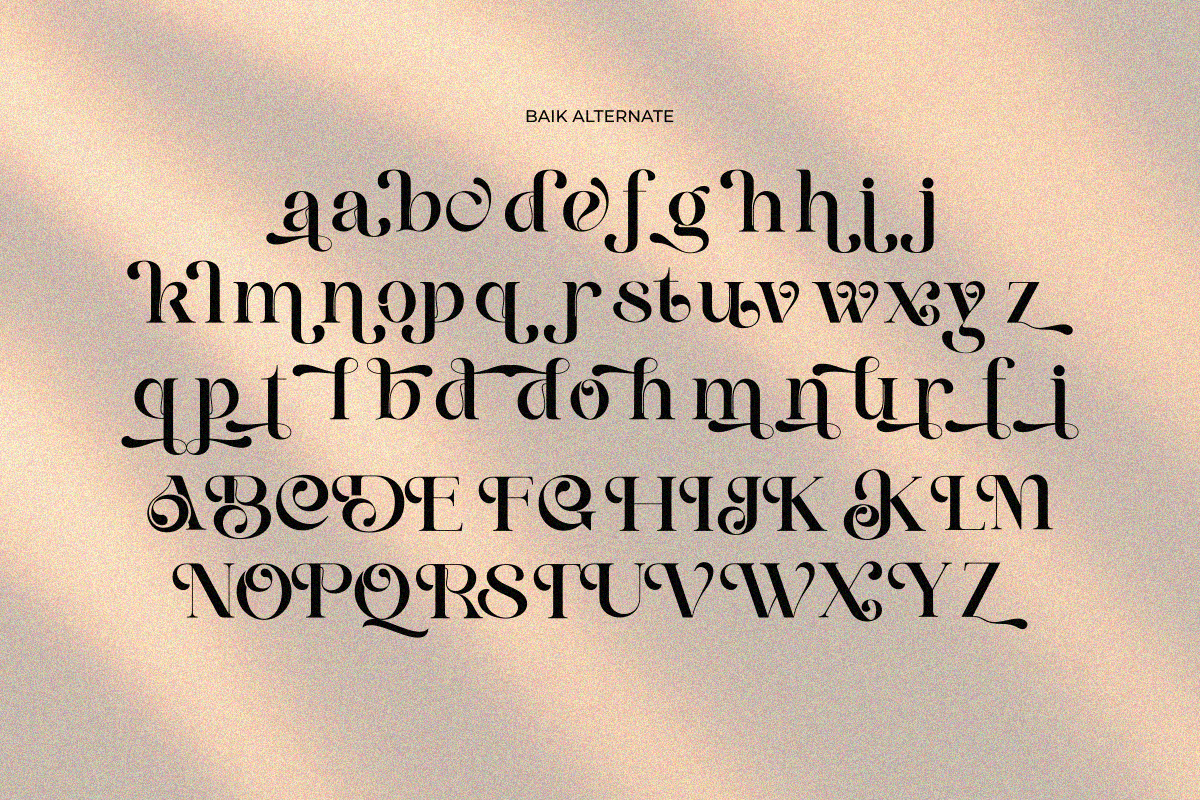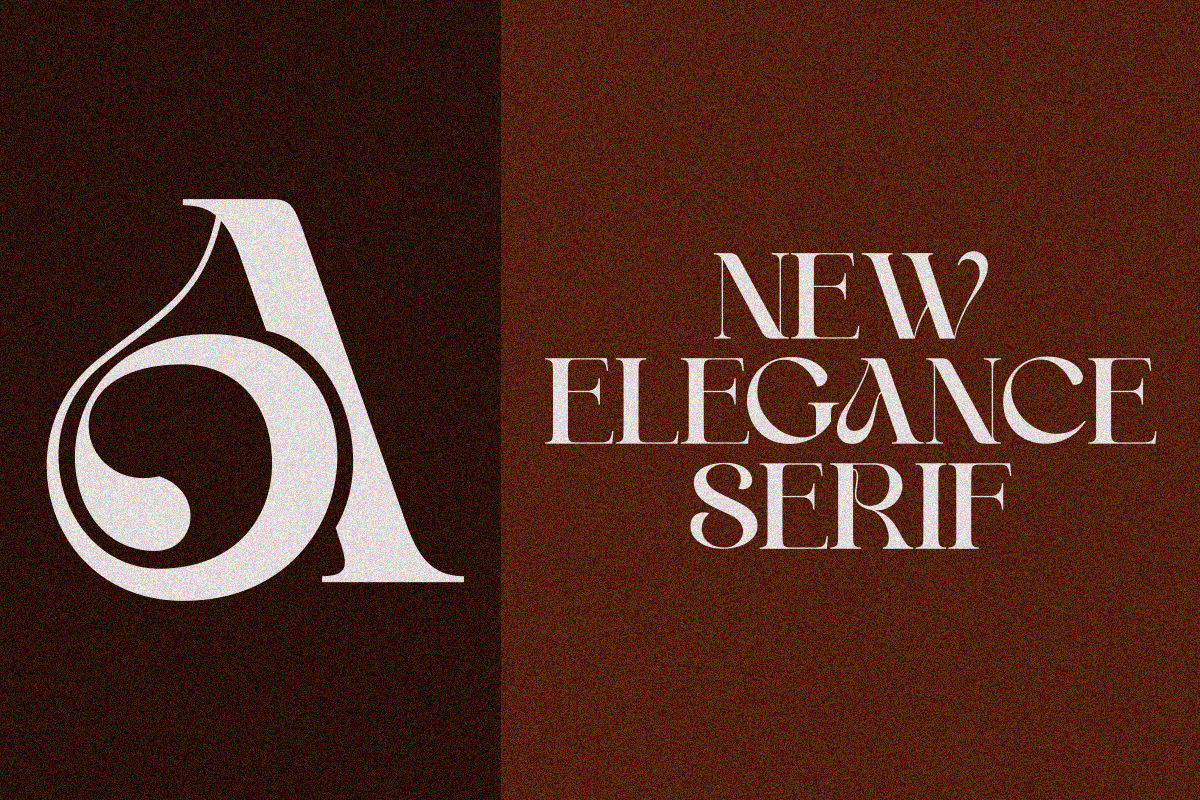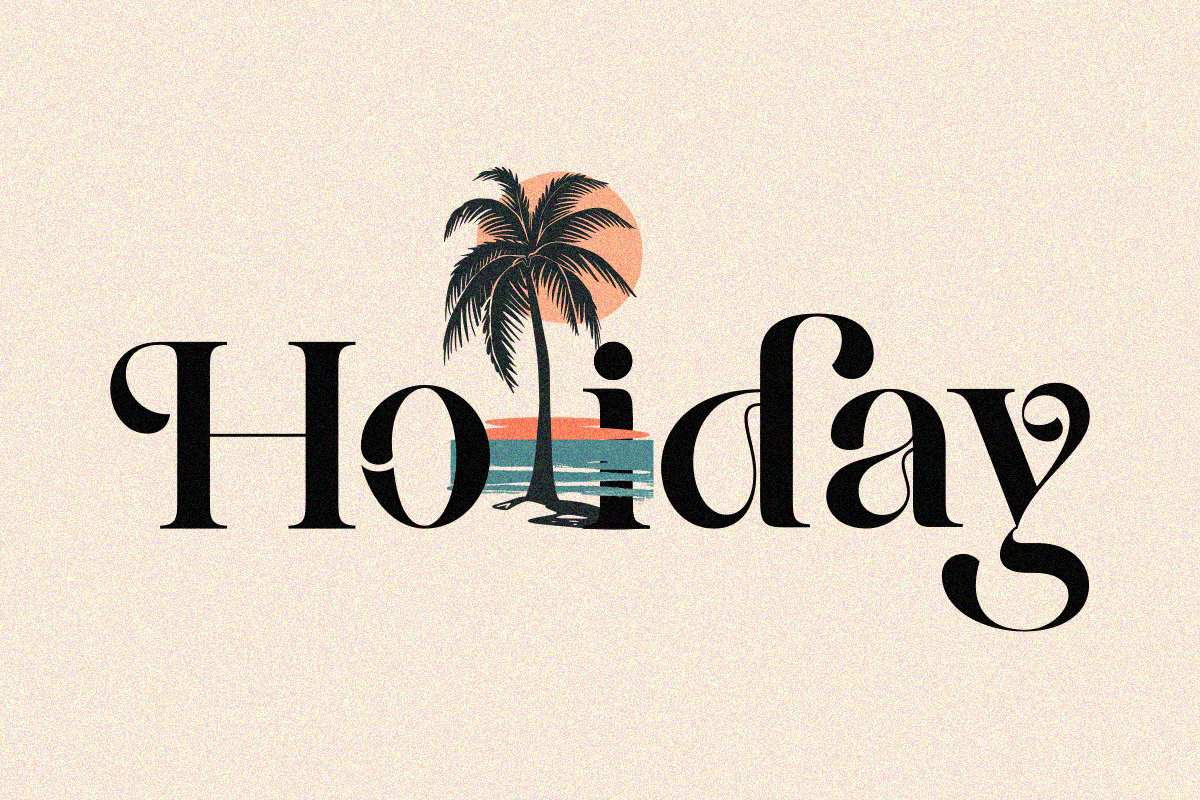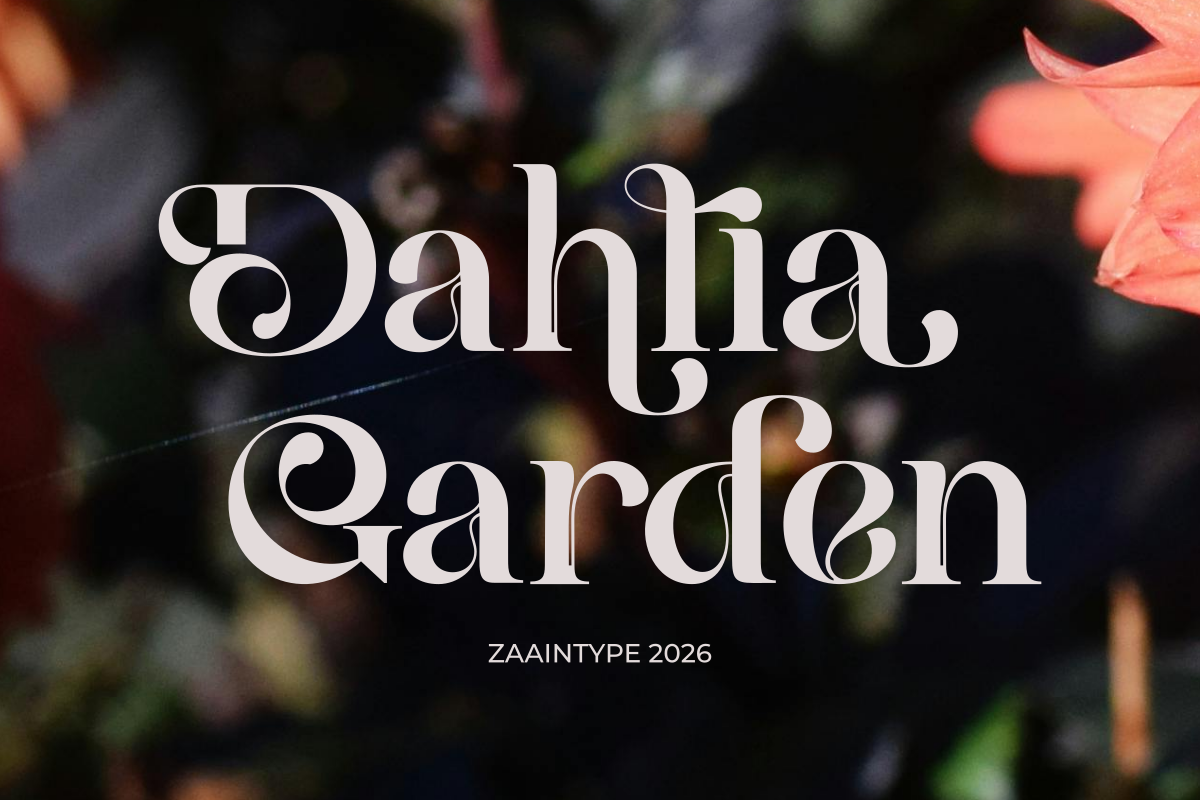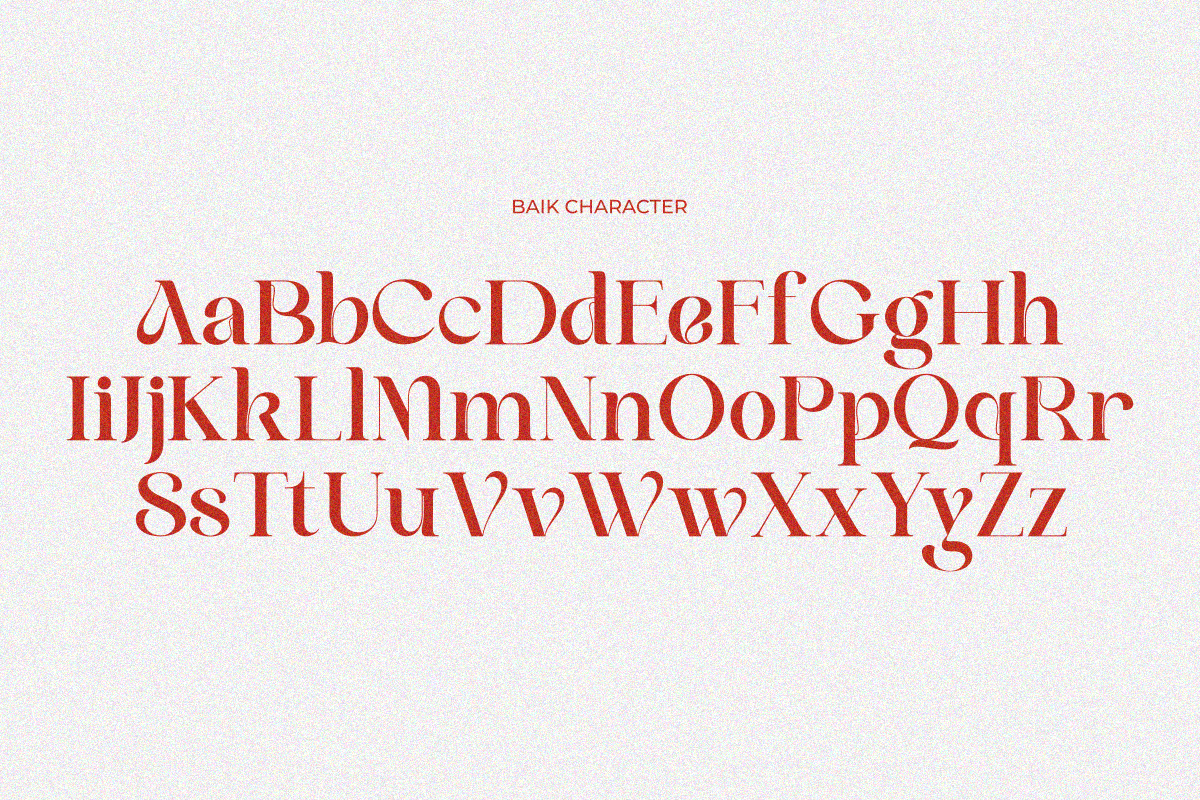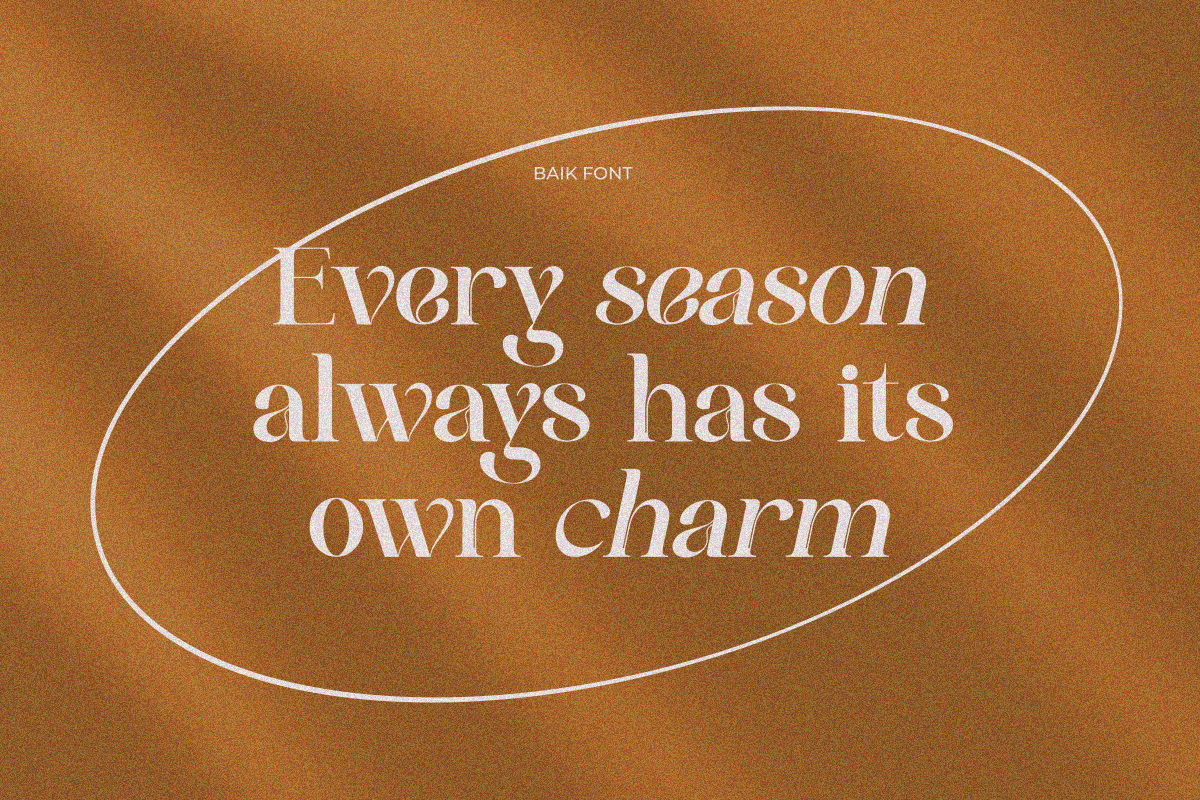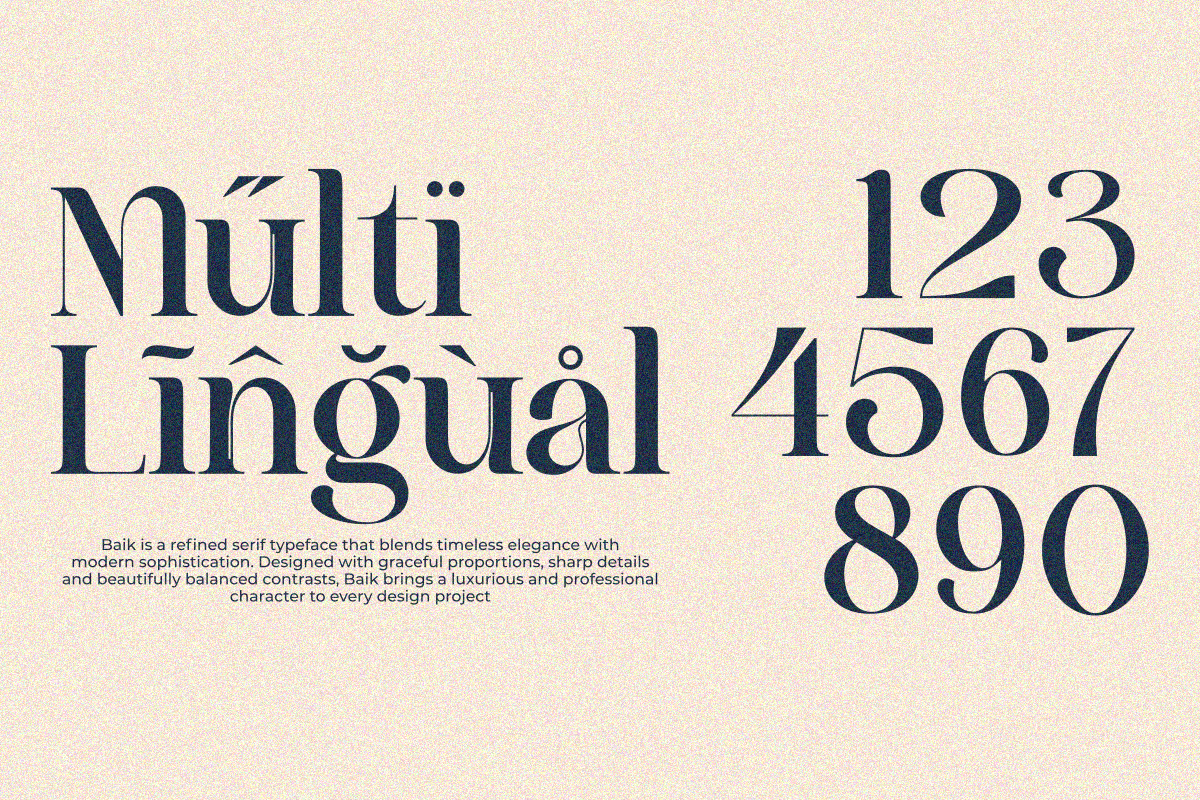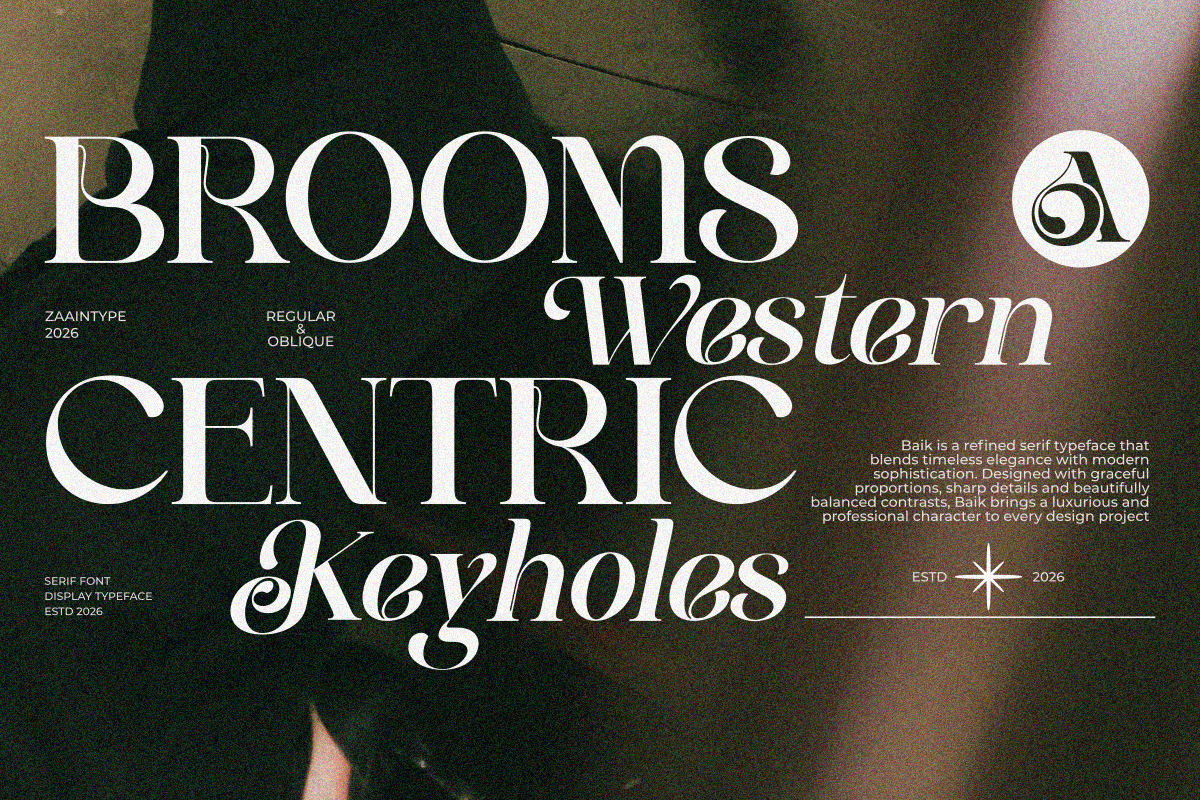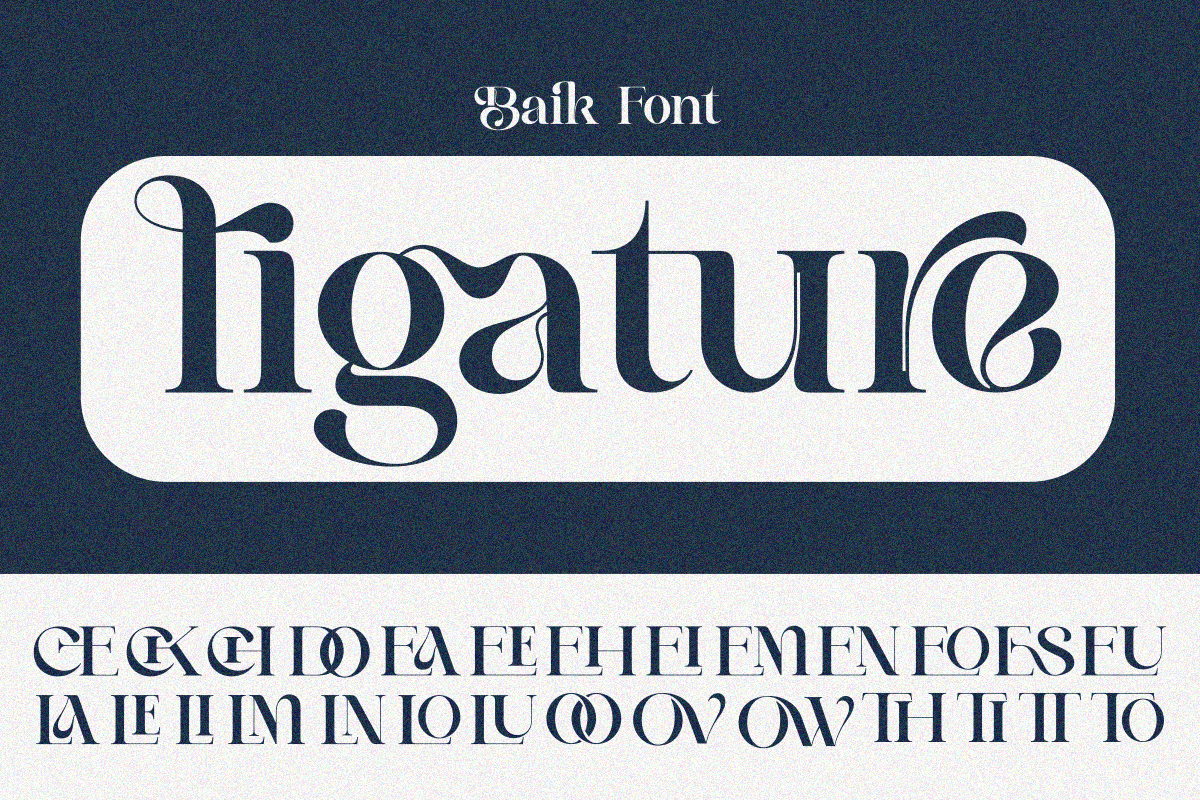
Baik
Baik is a refined serif typeface that blends timeless elegance with modern sophistication. Designed with graceful proportions, sharp details, and beautifully balanced contrasts, Baik brings a luxurious and professional character to every design project.
Perfect for branding, editorial layouts, fashion campaigns, packaging, logos, invitations, and premium marketing materials, Baik delivers excellent readability while maintaining a distinctive and stylish presence. Its classic serif structure is enhanced by contemporary touches, making it versatile for both traditional and modern visual identities.
Whether used for striking headlines or elegant body text, Baik adds a sense of confidence, beauty, and sophistication that helps your message stand out with lasting impact